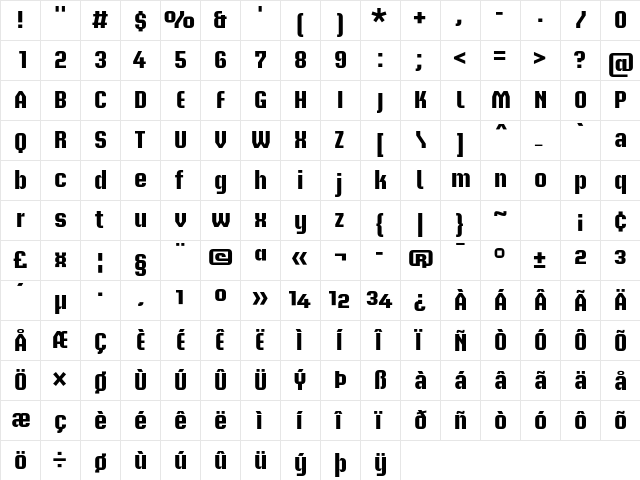
Briem Akademi Std Bold
| Designer | Gunnlaugur SE Briem |
Design Context for Briem Akademi Std Typeface
Briem Akademi Std is a composed and adaptable typeface that performs quietly and consistently across a wide range of design contexts. The heavy weight commands attention and anchors typographic hierarchies.